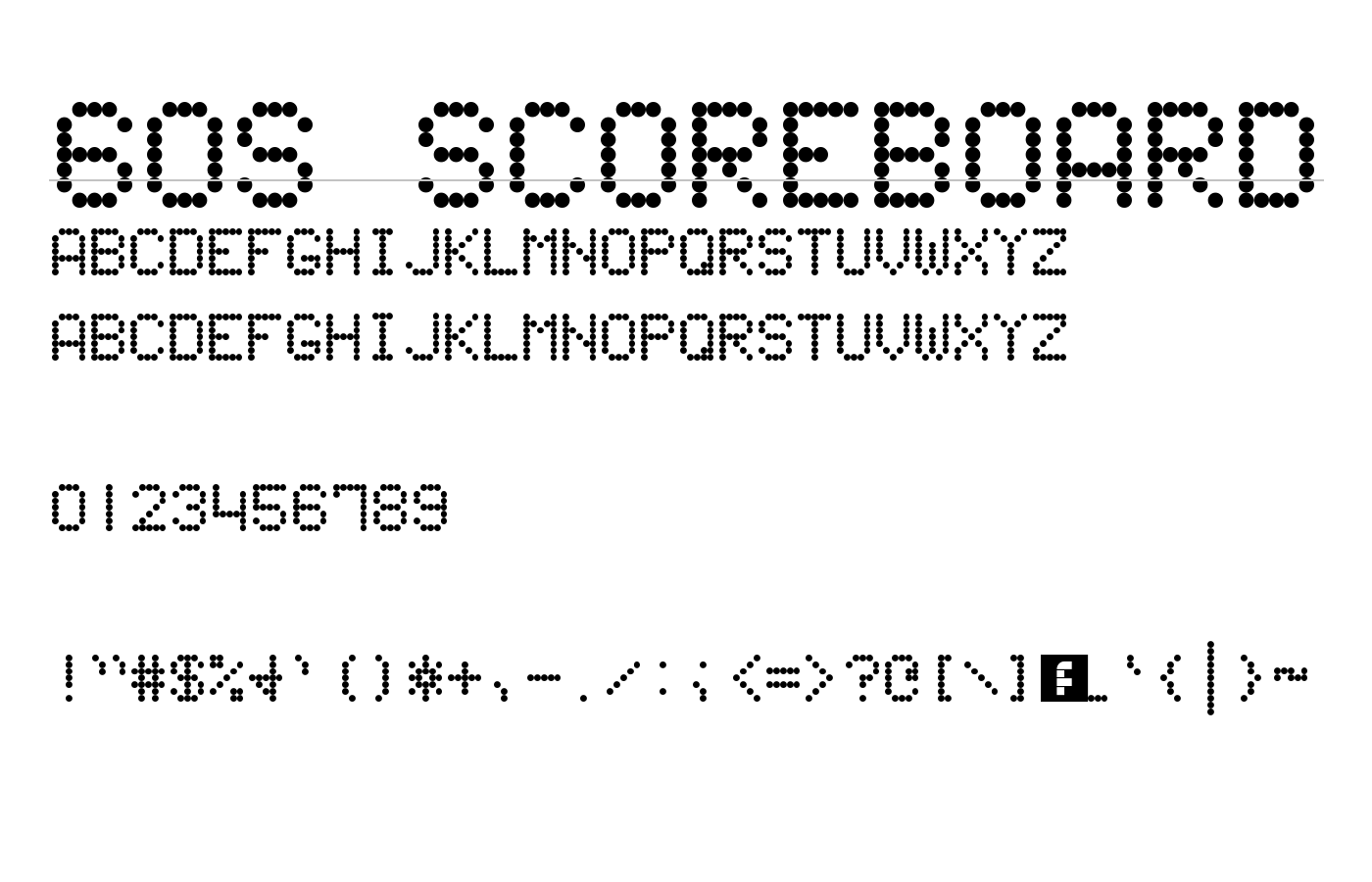
60s Scoreboard is a distinctive dot-matrix style sans serif font that captures the nostalgic look of vintage digital scoreboards from the 1960s. Its monospaced, geometric letterforms composed of evenly spaced circular dots convey a playful, retro-tech vibe ideal for sports, gaming, or any design seeking a bold, nostalgic statement. This font works best in headlines, logos, and digital-themed projects where a unique, eye-catching display type is desired.
60s Scoreboard Font
About 60s Scoreboard Font